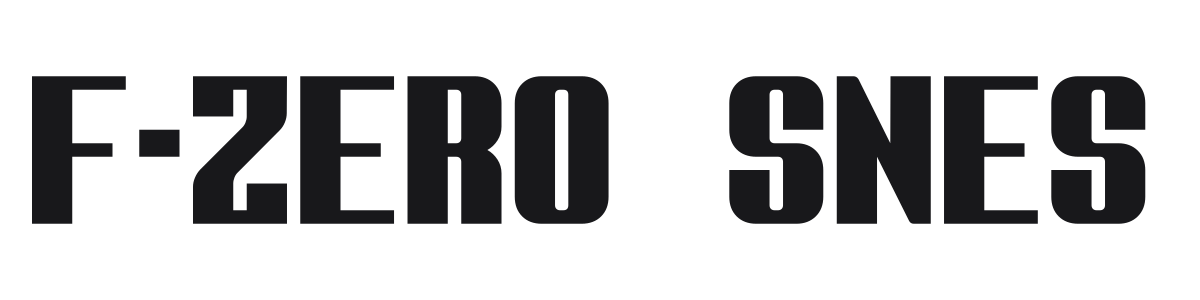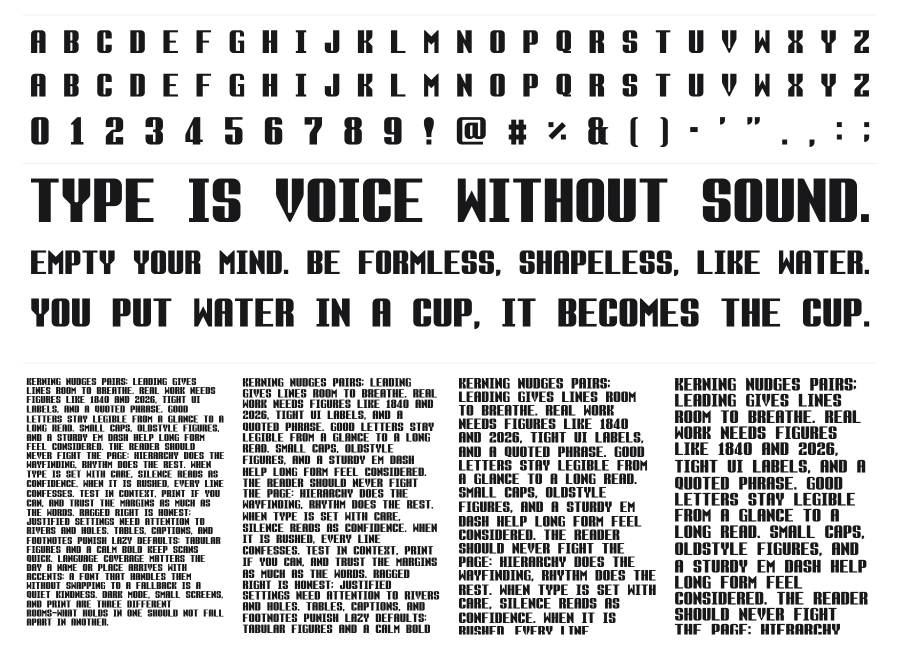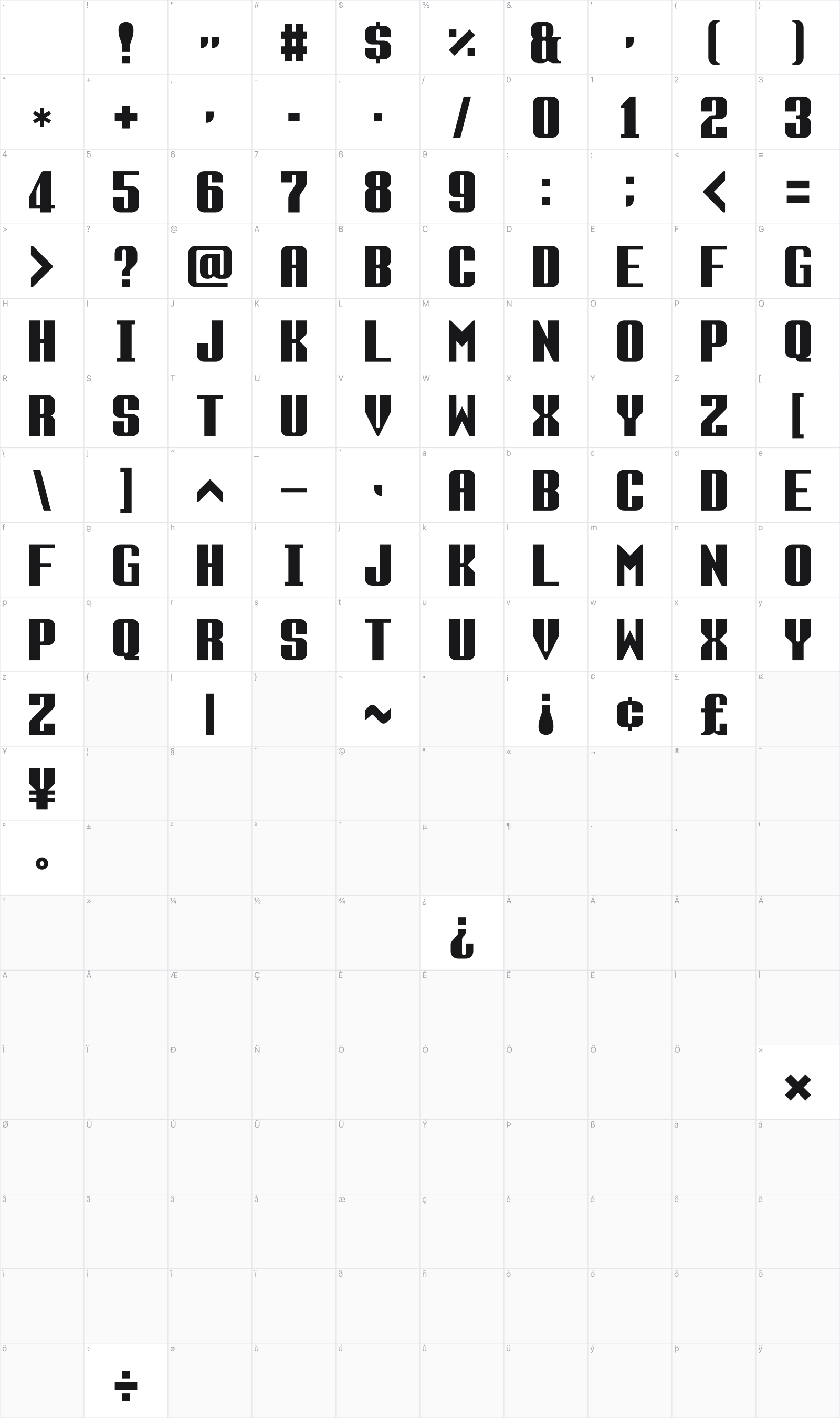
F-Zero SNES
F-Zero SNES is a bold, condensed display font recreating the chunky pixel-grid lettering from the classic SNES racing game. Hard angles, flat terminals, and tight spacing capture that unmistakable 16-bit energy at any size. Released to celebrate F-Zero 99, it carries the spirit of the original with extended characters the game never had.